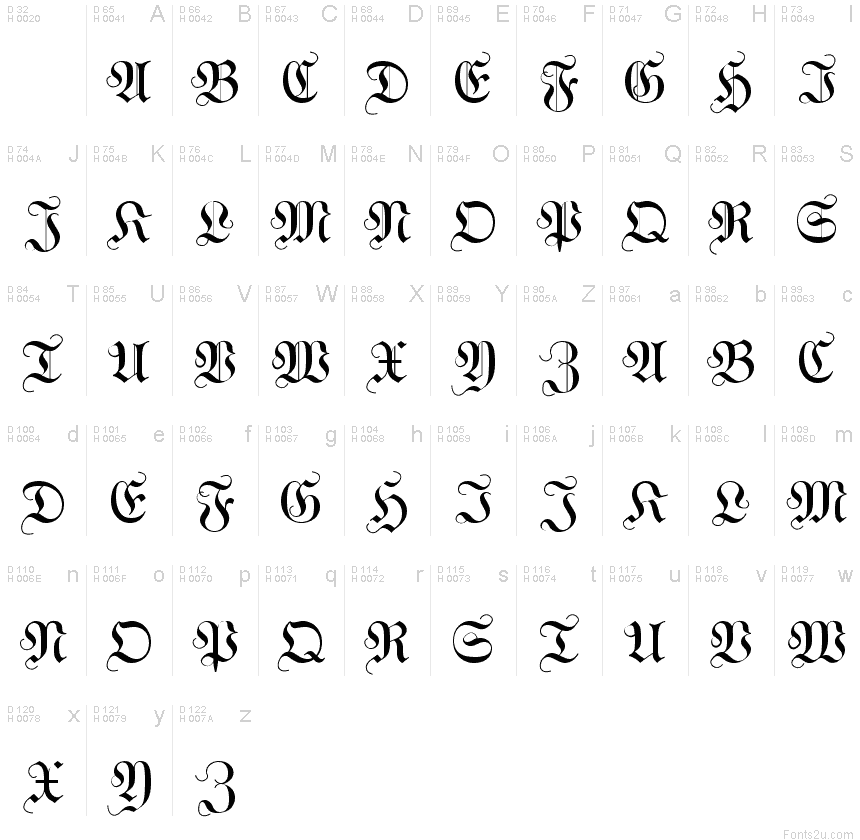
WittewittMajuscles-Flourish
Wittewitt Majuscles Flourish, designed by Manfred Klein, is a free flourished blackletter font with the ceremony of medieval manuscript capitals. Broad, dark strokes narrow into fine curls, and long sweeping flourishes recur throughout the lettering. The sharply modeled forms feel formal and theatrical.
Medieval fantasy and courtly themes make it especially apt for historical game graphics and book covers. Its ornate silhouettes also suit heraldic event posters and merchandise for audiences drawn to Gothic art, where the letters can function almost like illustrated emblems.